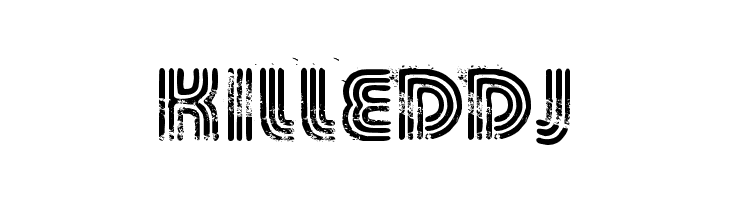
A bold, artistic font with a hand-drawn, layered appearance.
A futuristic, geometric font with a bold, interconnected design and three-dimensional effect.
A futuristic, techno-inspired font with bold, rounded characters and a continuous line style.
Bold, outlined collegiate font with a strong, traditional style.
A bold, decorative font with a three-dimensional effect and geometric influence.
A bold, decorative font with a vintage, three-dimensional effect.
A bold, futuristic italic font with a 3D outlined style.
A bold, decorative font with a three-dimensional, cartoonish style.
A bold, decorative font with triple-line outlines and geometric structure.
A retro, multi-line decorative font with a bold, rhythmic style.
A bold, decorative font with a striped, three-dimensional effect.
A bold, artistic font with an eclipse-like shadow effect and thick outlines.
A bold, geometric font with a modern inline style and industrial feel.
A bold, italic font with outlined characters and a modern, dynamic style.
A bold, italicized font with a futuristic, dynamic style and three-dimensional effect.
A bold, 3D ring-patterned font with a modern and playful style.
A bold, italic, futuristic font with angular, double-layered letterforms.
A bold, 3D outline font with a futuristic and dynamic style.
A bold, italic, futuristic font with outlined characters and sharp angles.
A bold, shaded, oblique font with a dynamic, three-dimensional appearance.
A bold, angular, and decorative font with a futuristic and aggressive style.
A decorative font with a cut-out pattern, offering a modern yet vintage charm.